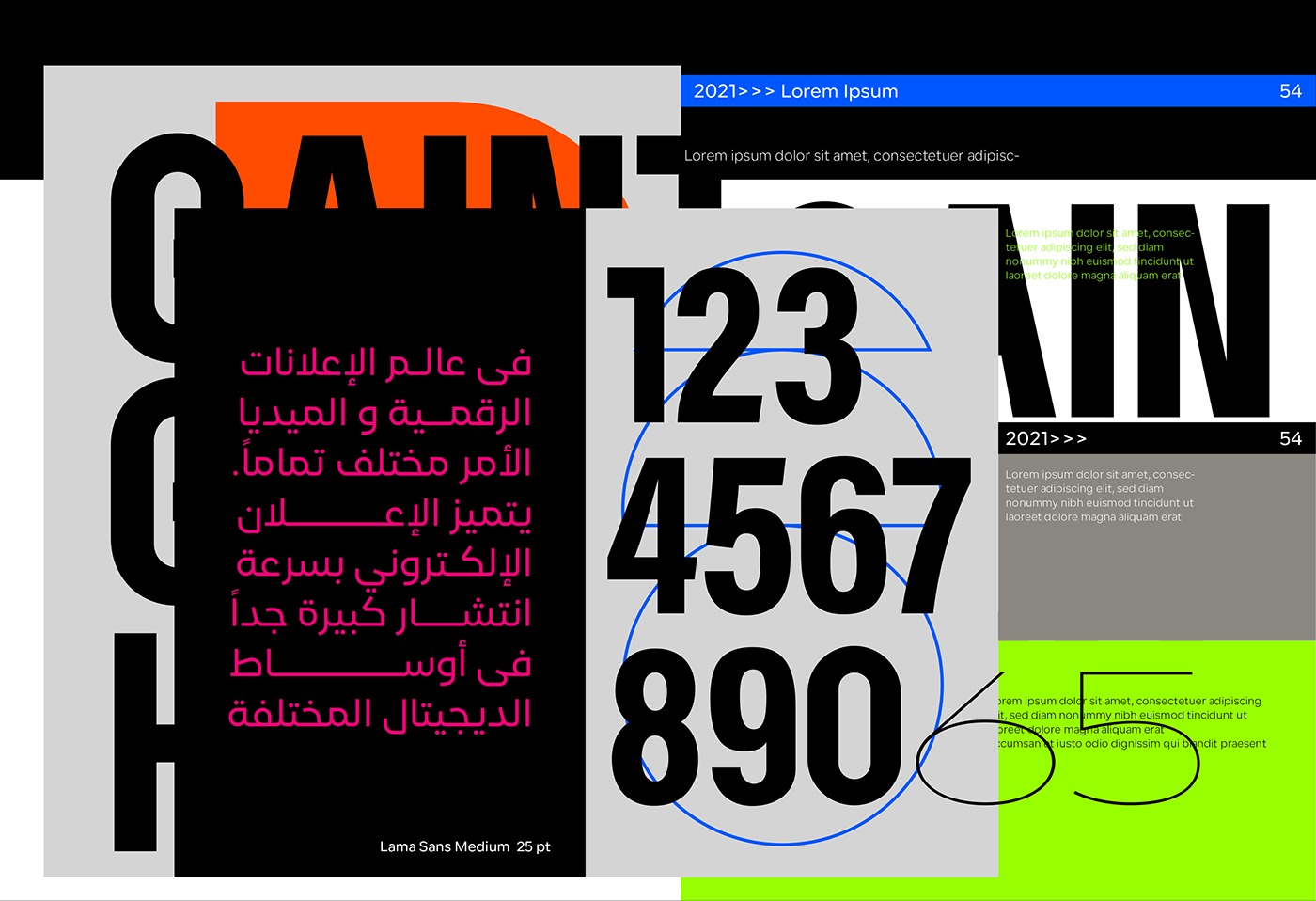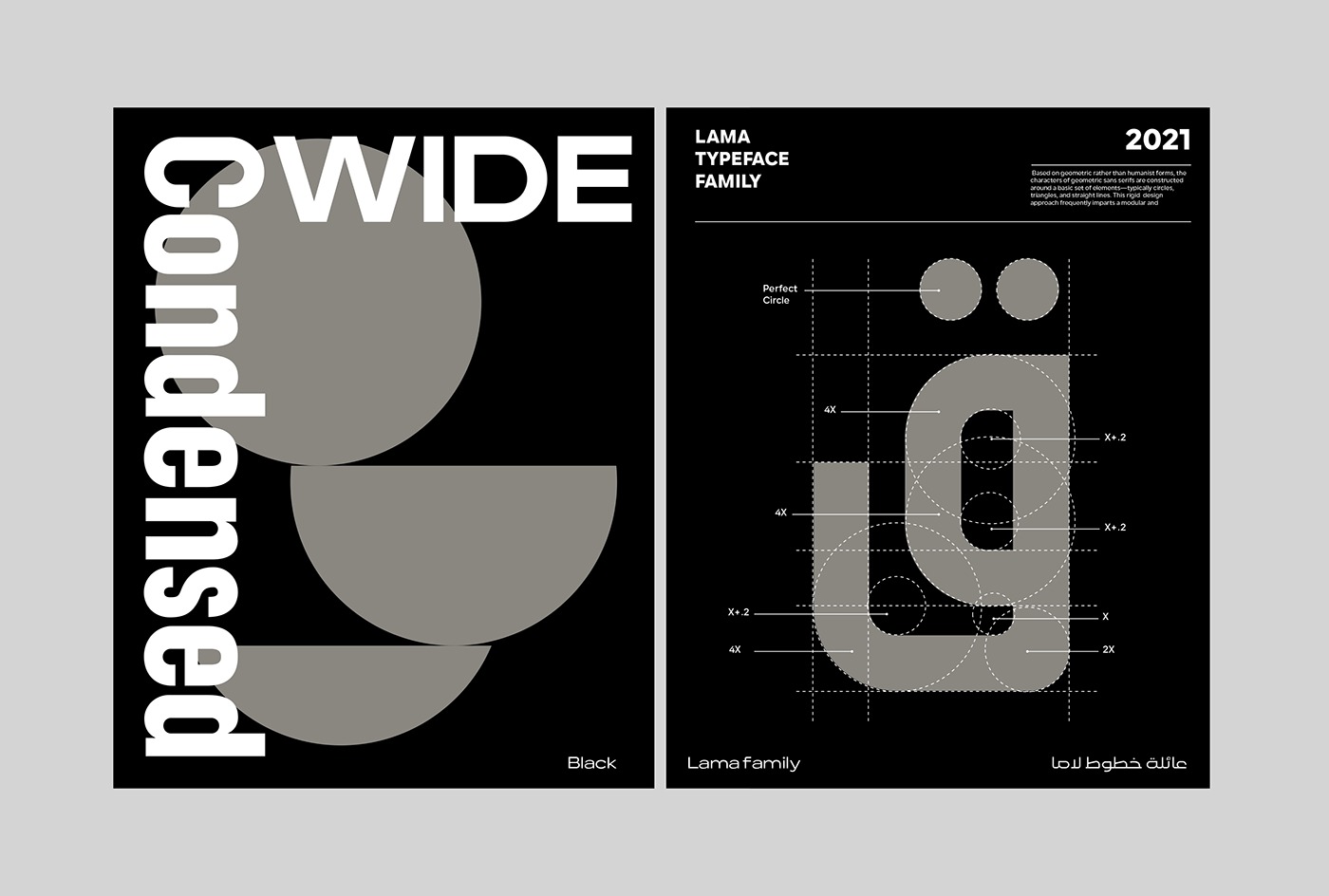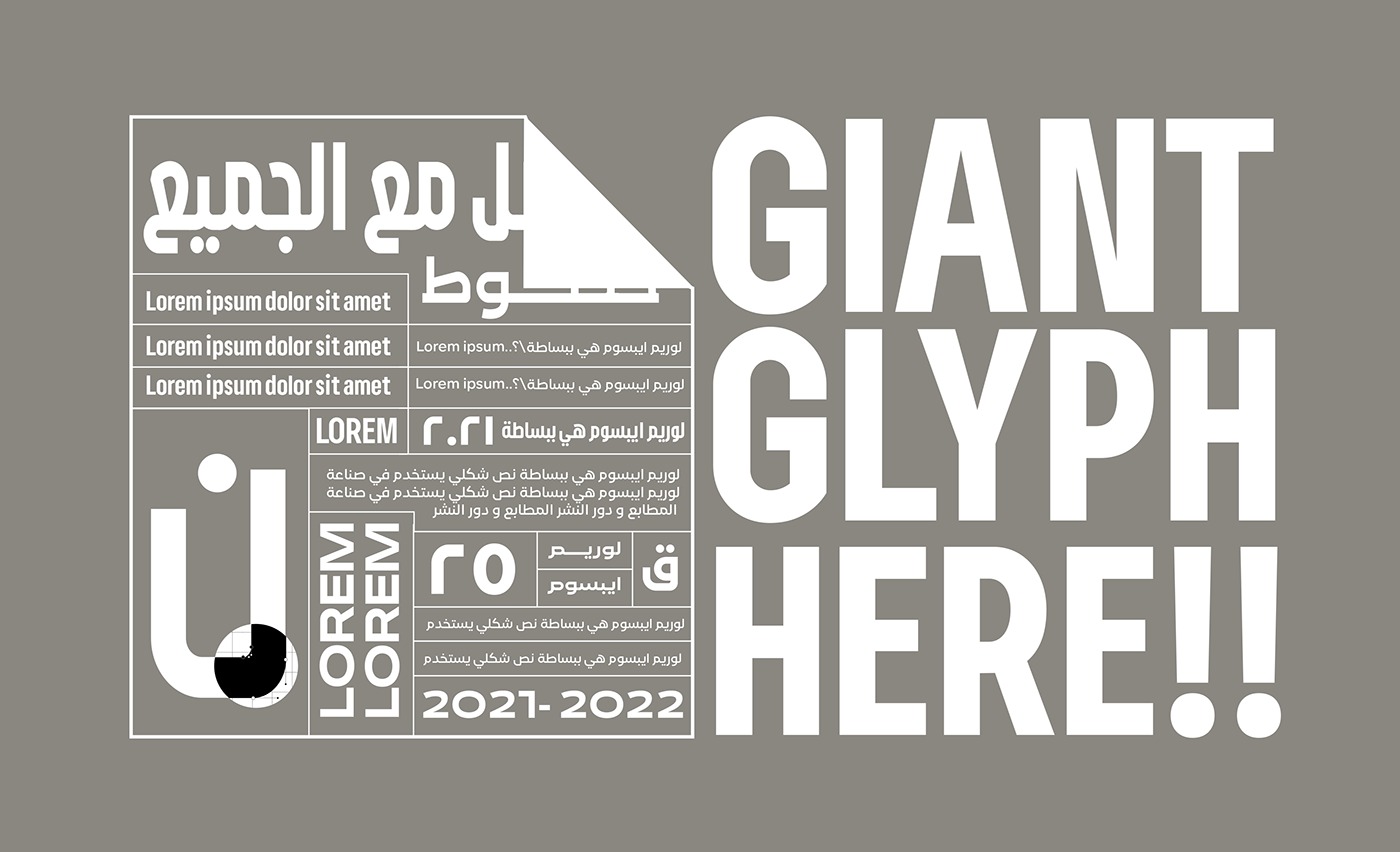
Lama Sans Font is a sans-serif font family of 54 fonts, meticulously crafted with geometric shapes and inspired by sans-serif typefaces. The creation of Lama started with a challenge to design a font suitable for both digital and print. This mission required supporting up to fifty languages that vary between Latin and Arabic. In addition to and introducing different styles from normal to compressed and wide. And as a result, the font would be eligible to fit titles, body texts, and headlines in bold sizes and small spaces